Space
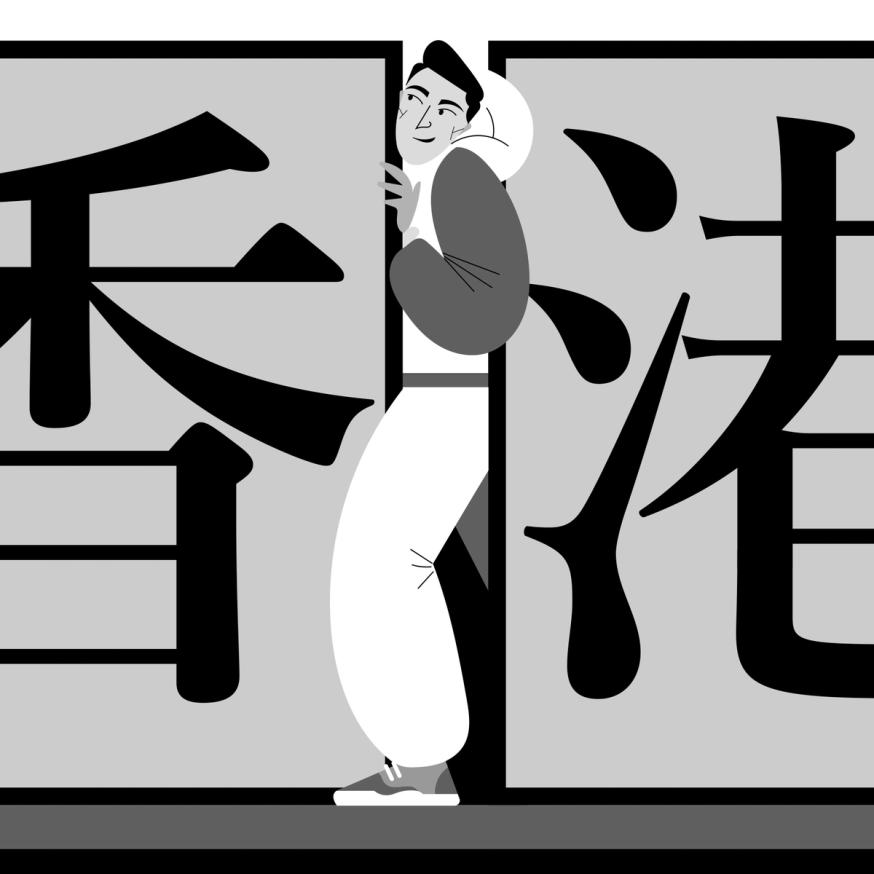
FUNCTION
For many writing systems (but not all), spaces separate words. Like punctuation symbols, they bring rhythm and clarity to a text and help with the reading experience. In the Latin script, several spaces with different widths are used for various situations (see Typographic Rules below).
HISTORY
In Ancient Latin, Roman capitals had no spaces between words. In some monuments, dots could be placed at middle height to help identify the words. In Europe, with the adoption of the Latin script, they started to appear in calligraphed manuscripts to help the readers identify the different words.
During the metal type printing era, blank pieces of lead were used as spaces between words. There were multiple widths for word spaces to help arrange text lines with precise length (em space, thin space, etc.). They lead to various rules in various languages and typographic traditions.
Nowadays, texts in the digital realm still make use of a variety of spaces for different situations in different languages, and also to offer different typographic options.
DESIGN
Spaces shouldn’t be too wide or too narrow. In Latin script based languages, a common convention is to set the width of the generic space glyph (U+0020) similar to that of the letter I or i.
TYPOGRAPHIC RULES
Many languages—including those commonly using the Latin script—have specific typographic rules.
One example: in French, before a question mark, exclamation mark, semi-colon or colon, there is a non-breaking space, whereas there isn’t any in English or other languages.
In digital typesetting, there are variable word spaces, breaking and non-breaking spaces, which give the text processing application the information on whether the width of the space can be adjusted or if the text line can or can not be broken at a specific place.
UNICODE
SPACE: U+0020
NON-BREAKING SPACE: U+00A0
EN SPACE: U+2002
EM SPACE: U+2003
THIN SPACE: U+2009
HAIR SPACE: U+200A
IDEOGRAPHIC SPACE: U+3000